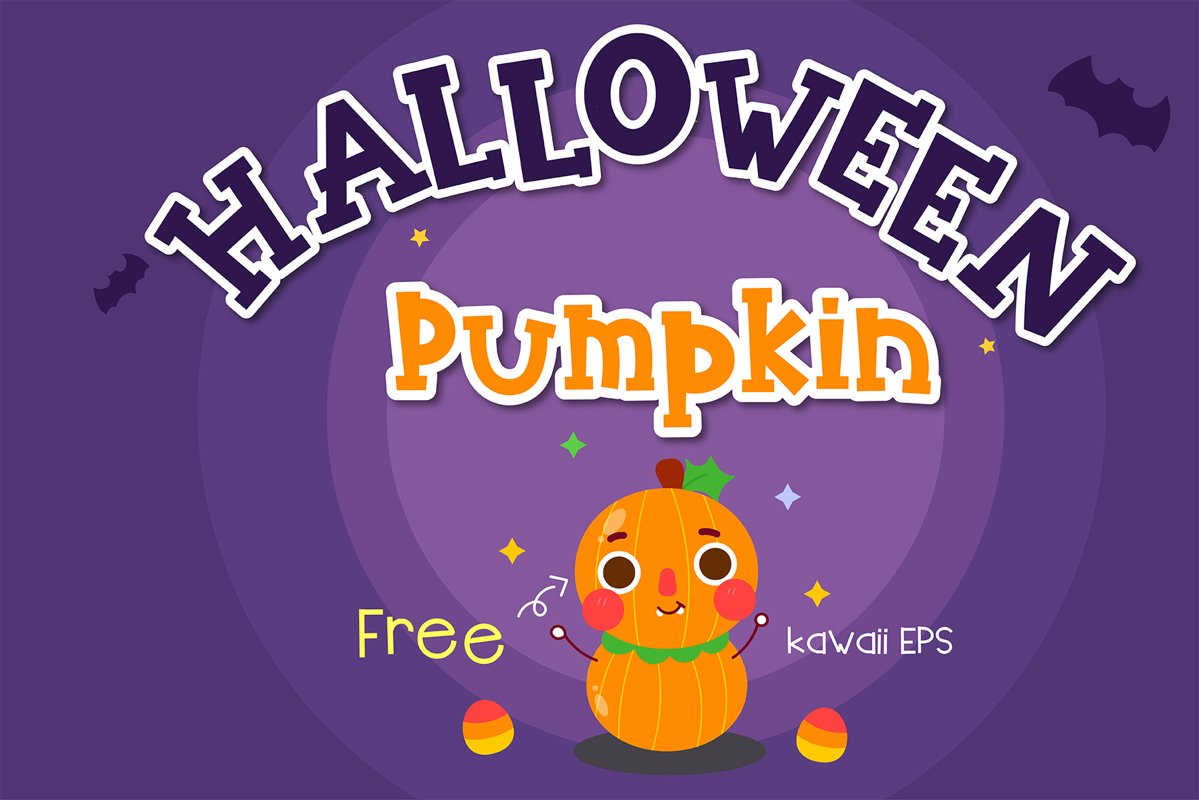
Halloween pumpkin Handwritten - cute kid font Kawaii style!
Halloween pumpkin Handwritten Font- Handwritten Kawaii style. English language only
Are you looking for cute Handwritten font for your project? Then you have come the right land!!
This
Font is perfect for kid greeting card, Print t shirt, fashion artworks
or just play around. Festival like Halloween festival, Kid's Party,
invitation!!